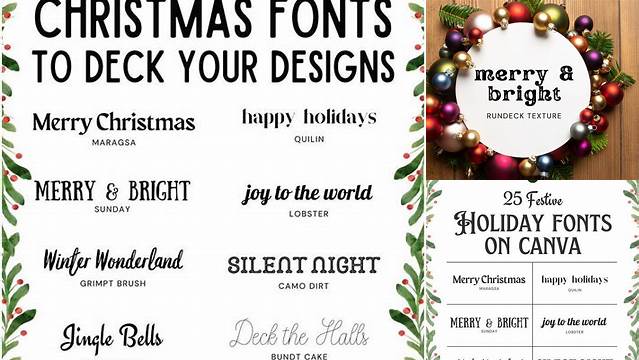
Festive Christmas Fonts: Deck Your Designs!
Let's dive into the wonderful world of christmas fonts, guys! It's that time of year again when everything needs a touch of holiday magic, and that includes your designs. Choosing the right font can make all the difference, whether you're creating festive cards, eye-catching posters, or cozy social media posts. This article will explore a variety of christmas fonts to help you spread the holiday cheer.
1. Classic Christmas Fonts
When you think of classic christmas fonts, what comes to mind? Maybe it's the elegant script reminiscent of old-fashioned Christmas cards or the bold, festive letters that scream holiday spirit. These fonts are timeless and reliable, perfect for projects where you want to evoke a sense of tradition and nostalgia. Let's explore some of the most beloved classic options.
Choosing a classic font often means opting for readability and sophistication. Think about fonts like Garamond or Times New Roman but with a holiday twist. A slightly decorative serif font can add a touch of elegance without being overwhelming. For headlines, consider something like Baskerville or Caslon; these fonts have a timeless appeal that works wonderfully for Christmas designs. Incorporating these classic christmas fonts ensures your message is delivered with clarity and style. For example, use them in formal invitations or sophisticated holiday greetings. A carefully chosen classic font will make your design look polished and professional. Don't underestimate the power of a well-placed serif or script in conveying the spirit of the season! And remember, the best christmas fonts are those that complement your overall design theme, creating a harmonious and festive look.
2. Script and Calligraphy Christmas Fonts
For a touch of elegance and flair, script and calligraphy christmas fonts are the way to go. These fonts mimic the flow of handwriting, adding a personal and sophisticated touch to your holiday designs. Whether you're addressing envelopes, designing invitations, or creating beautiful quotes for social media, a well-chosen script font can make all the difference. Let's explore some stunning options and how to use them effectively.
When selecting script christmas fonts, consider the overall mood you want to convey. A delicate, flowing script can create a romantic and whimsical feel, perfect for elegant Christmas cards. On the other hand, a bolder, more dramatic script can add a sense of luxury and grandeur to your designs. Fonts like Brush Script or Great Vibes are popular choices for their graceful curves and readability. But remember, readability is key! Avoid scripts that are too ornate or difficult to decipher, especially for body text. Instead, use them sparingly for headings or short phrases. Pairing a script font with a simpler sans-serif font for the body text can create a balanced and visually appealing design. For instance, use a script font for “Merry Christmas” and a clean sans-serif font for the rest of your message. Experiment with different weights and styles within the script category to find the perfect match for your project. With the right script and calligraphy christmas fonts, you can add a touch of magic to your holiday creations.
3. Modern Christmas Fonts
If you're aiming for a contemporary holiday vibe, modern christmas fonts are your best bet. These fonts often feature clean lines, geometric shapes, and a minimalist aesthetic, perfect for designs that want to feel fresh and current. Think sleek Christmas cards, trendy social media graphics, and modern holiday invitations. Let's explore how to incorporate these fonts into your festive projects.
Modern christmas fonts embrace simplicity and clarity, making them ideal for digital designs and projects where readability is crucial. Sans-serif fonts like Helvetica, Arial, and Futura are classic choices that work well in modern contexts. However, you can still add a festive touch by choosing fonts with unique characteristics or by pairing them with decorative elements. Look for fonts with slight variations in weight or spacing to add visual interest. Consider using a bold, condensed font for headlines to make a statement, or a lighter weight font for body text to maintain readability. Experiment with different font pairings to find a combination that feels both modern and festive. For example, you might pair a clean sans-serif font with a slightly decorative serif font for a touch of traditional charm. Remember, the key to using modern christmas fonts effectively is to balance simplicity with personality. By choosing the right font and using it creatively, you can create holiday designs that are both stylish and festive. A thoughtful combination of typography and design elements will ensure your message stands out in a contemporary way.
4. Decorative Christmas Fonts
Let's talk decorative christmas fonts! These are the fonts that really bring the festive flair, often featuring intricate details, whimsical shapes, and holiday-themed elements. Think snowflakes, ornaments, and candy canes incorporated into the letterforms. While they might not be ideal for large blocks of text, these fonts are perfect for adding a touch of whimsy to headlines, titles, and short phrases. Let's explore how to use them effectively.
The magic of decorative christmas fonts lies in their ability to instantly evoke the holiday spirit. These fonts are perfect for grabbing attention and adding a playful touch to your designs. However, it's essential to use them sparingly to avoid overwhelming your audience. Consider using decorative fonts for headlines or titles and pairing them with a simpler, more readable font for the body text. When choosing a decorative font, think about the overall theme of your project. A font with snowflake details might be perfect for a winter-themed design, while a font with candy cane stripes could be ideal for a children's Christmas party invitation. Be mindful of readability; some decorative fonts can be challenging to read, especially in smaller sizes. Experiment with different sizes and colors to ensure your message is clear and visually appealing. And remember, the best decorative christmas fonts are those that complement your design without overpowering it. A well-chosen decorative font can add the perfect finishing touch to your holiday creations, making them truly memorable.
5. Handwritten Christmas Fonts
There's something incredibly personal and warm about handwritten christmas fonts. They evoke the feeling of receiving a handwritten letter or card, adding a touch of authenticity and charm to your holiday designs. These fonts range from casual and playful to elegant and sophisticated, offering a wide variety of styles to choose from. Let's explore how to incorporate handwritten fonts into your festive projects.
Handwritten christmas fonts are perfect for adding a human touch to your designs, making them feel more personal and heartfelt. They're ideal for invitations, greeting cards, social media posts, and any project where you want to convey warmth and sincerity. When choosing a handwritten font, consider the overall tone of your design. A messy, playful font might be perfect for a casual Christmas party invitation, while a more elegant script could be ideal for formal holiday greetings. Pay attention to readability; some handwritten fonts can be difficult to read, especially in smaller sizes. Test your font in different sizes and contexts to ensure your message is clear. Pairing a handwritten font with a simpler font for the body text can create a balanced and visually appealing design. For instance, use a handwritten font for the headline and a clean sans-serif font for the rest of the text. With the right handwritten christmas fonts, you can create designs that feel both festive and personal, capturing the true spirit of the holidays.
Let's embark on a typographic treasure hunt and discover where to find christmas fonts! Finding the perfect fonts for your holiday designs can feel like searching for the pot of gold at the end of the rainbow. But fear not, fellow designers, because the internet is a treasure trove of font resources just waiting to be explored! Knowing where to look can save you time, effort, and frustration in your quest for the perfect typography. Numerous websites offer both free and premium fonts for Christmas projects, catering to a wide range of styles and budgets. Google Fonts is a fantastic resource for high-quality free fonts that are easy to use and compatible with most design software. Websites like MyFonts, Creative Market, and Fontspring offer a curated selection of premium fonts from talented designers, allowing you to elevate your designs with unique and professional typography. Don't forget to explore font marketplaces like DaFont and Fontspace for a vast collection of free and shareware fonts. With the knowledge of where to find christmas fonts, you'll be equipped to create stunning holiday designs that are both visually appealing and typographically sound!